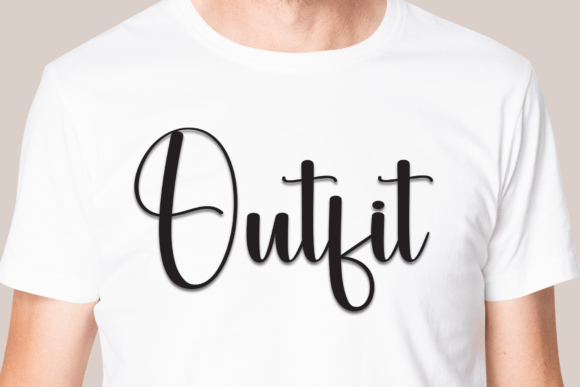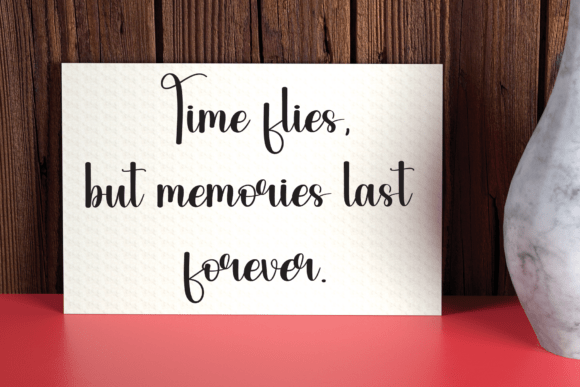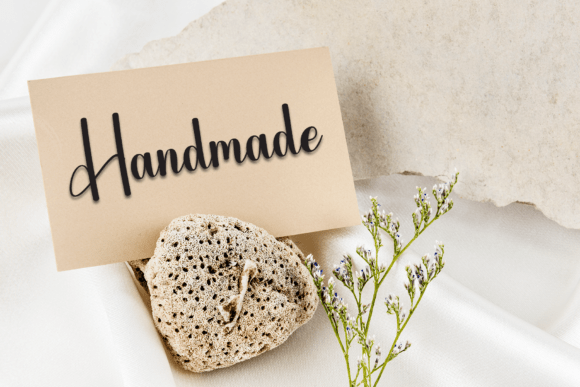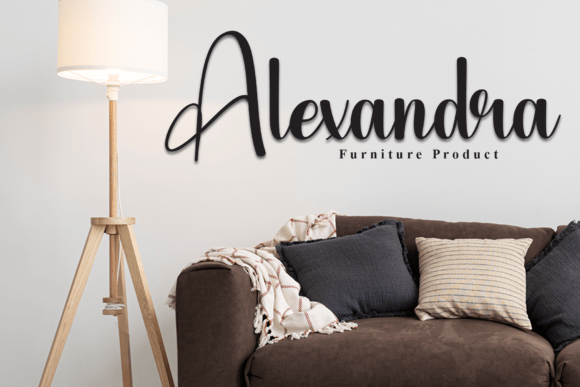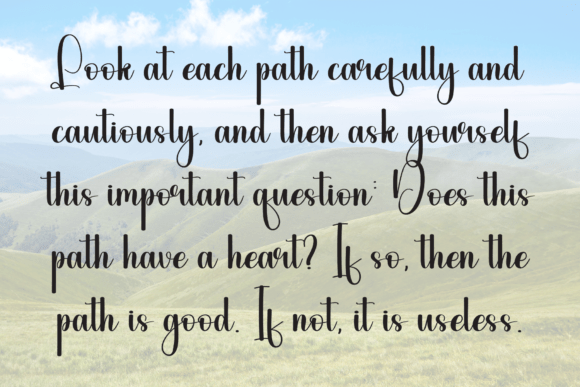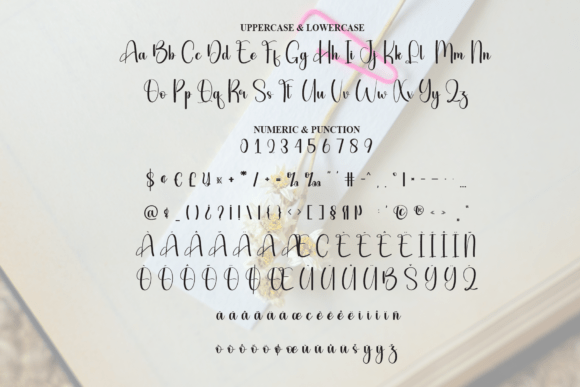
The Perfect Beachy Keen Font: A Deep Dive into Beach Bookmark
I’ll never forget the time I was working on a beach-themed wedding invitation project, and I just couldn’t find the right font to capture the laid-back, yet elegant vibe I was going for. The client wanted something that screamed “beachy keen” without being too kitschy or over-the-top. That’s when I stumbled upon Beach Bookmark, a stylish handwritten script font that has since become a staple in my design toolkit.
Beach Bookmark is a true gem, and here’s what I love about it:
- ✨ Elegant, flowing curves that add a touch of sophistication to any project
- ✅ A natural rhythm that makes it perfect for invitations, branding, and social media
- 💫 A charming, personal feel that’s hard to achieve with digital fonts
- 🎨 A versatile design that works well with both bold and delicate color schemes
Of course, no font is perfect, and Beach Bookmark does have a few quirks:
- 🤔 Some letters, like the uppercase “Q” and “J”, can be a bit tricky to read at smaller font sizes
- ⚠️ The font doesn’t have a built-in bold weight, which can limit its use in certain design situations
The Story Behind Beach Bookmark
Beach Bookmark was designed by a talented typographer who wanted to capture the essence of a perfect beach vacation. With its flowing curves and natural rhythm, this font is the perfect blend of elegance and playfulness. Whether you’re designing invitations, branding materials, or social media graphics, Beach Bookmark is sure to bring a touch of warmth and sophistication to your project.
Here are a few questions I’ve received about Beach Bookmark:
- Q: Is Beach Bookmark suitable for body text?
- A: While Beach Bookmark is a beautiful font, it’s best suited for headlines and titles rather than body text. Its elegant design and flowing curves make it perfect for adding a touch of sophistication to your project, but it may be too ornate for longer blocks of text.
- Q: Does Beach Bookmark have a bold weight?
- A: Unfortunately, Beach Bookmark doesn’t have a built-in bold weight. However, you can use the font’s stylistic alternates to create a bold effect, or pair it with a bold sans-serif font for contrast.
- Q: Is Beach Bookmark easy to read?
- A: Beach Bookmark is generally easy to read, especially at larger font sizes. However, some letters (like the uppercase “Q” and “J”) can be a bit tricky to read at smaller font sizes.